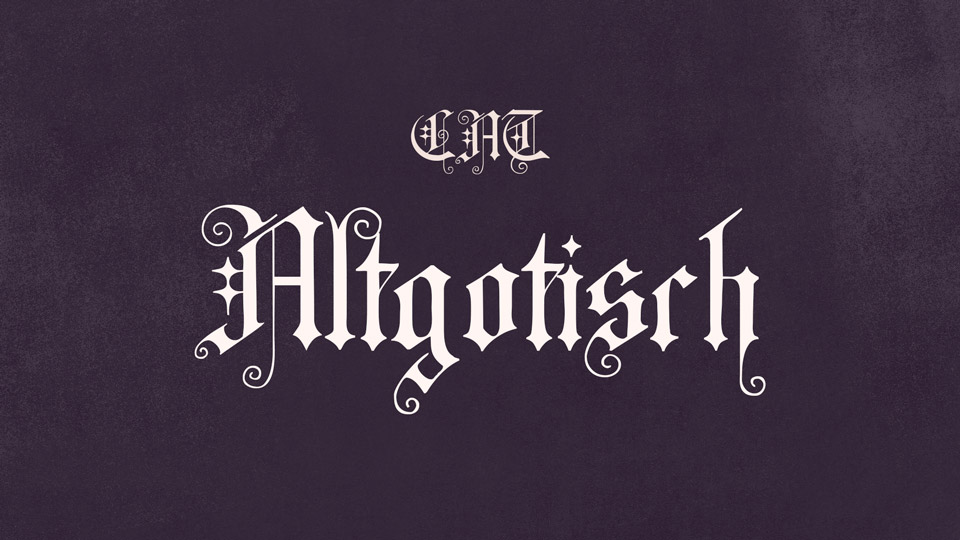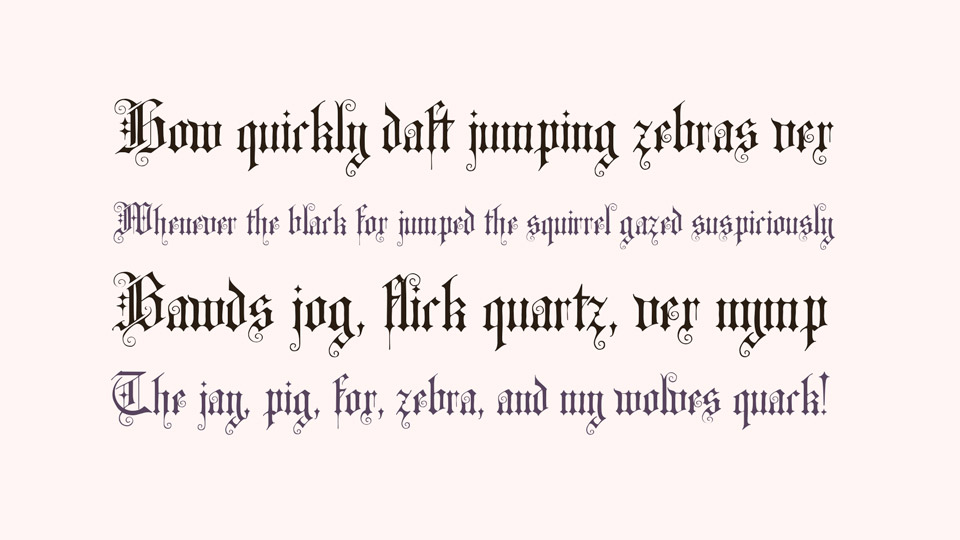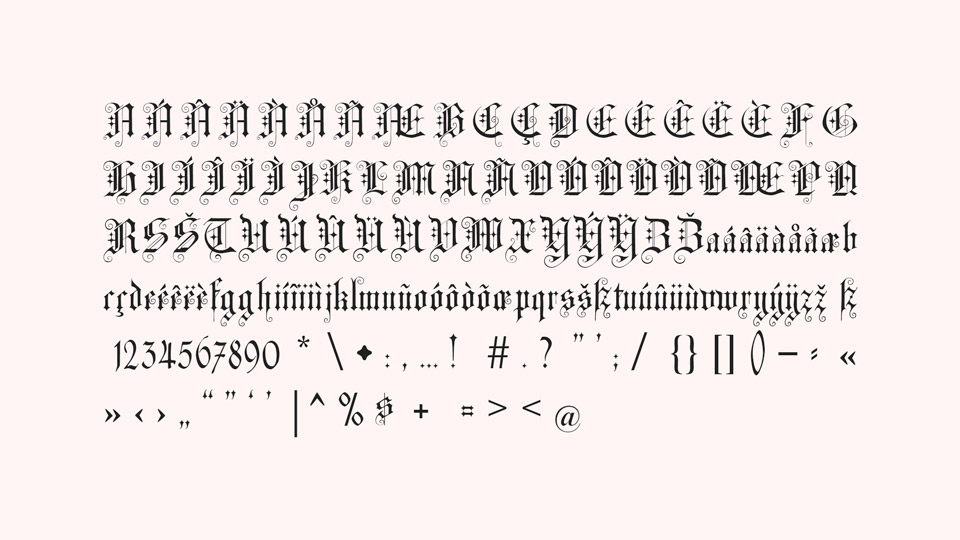
CAT Altgotisch is an ornate typeface from the late 19th century created from the skeleton of Old Gothic writings.
CAT Altgotisch font looks striking for initials or monograms, which can then be easily placed on pins.